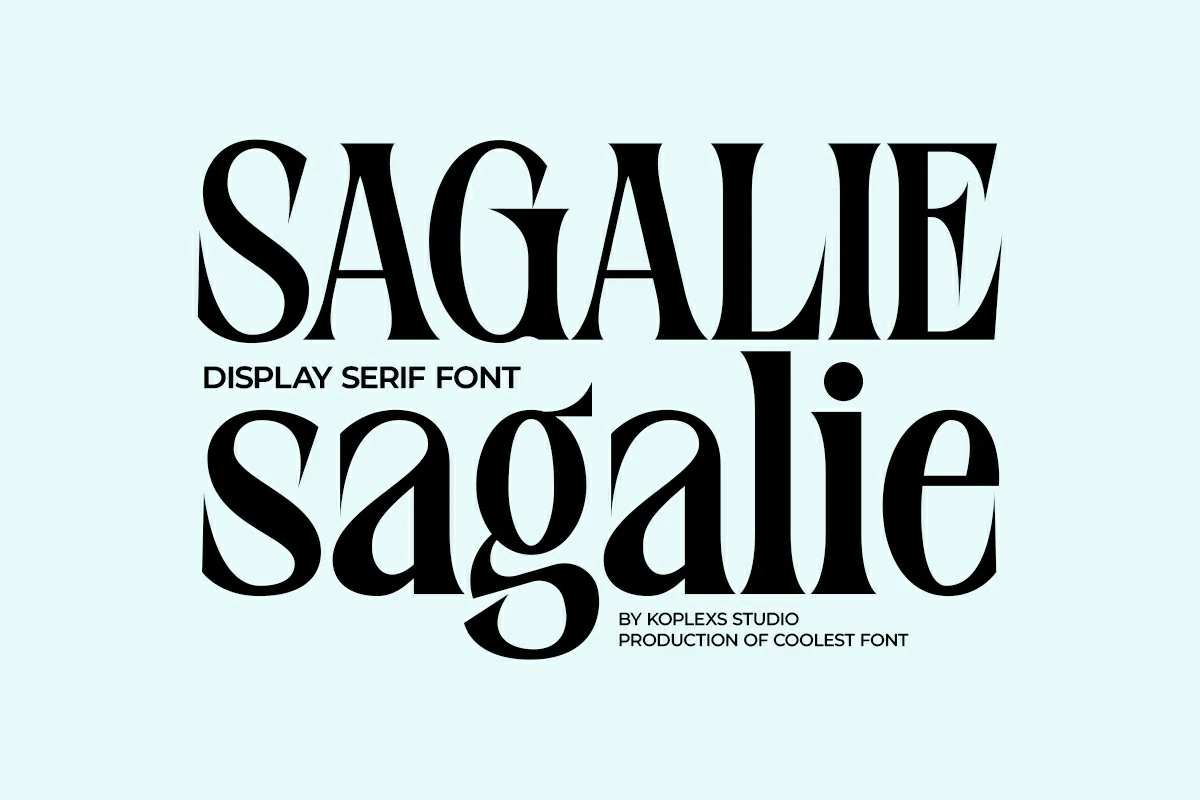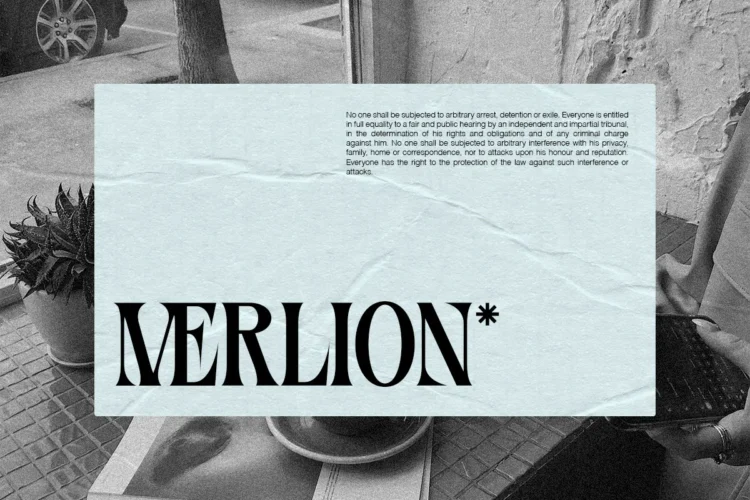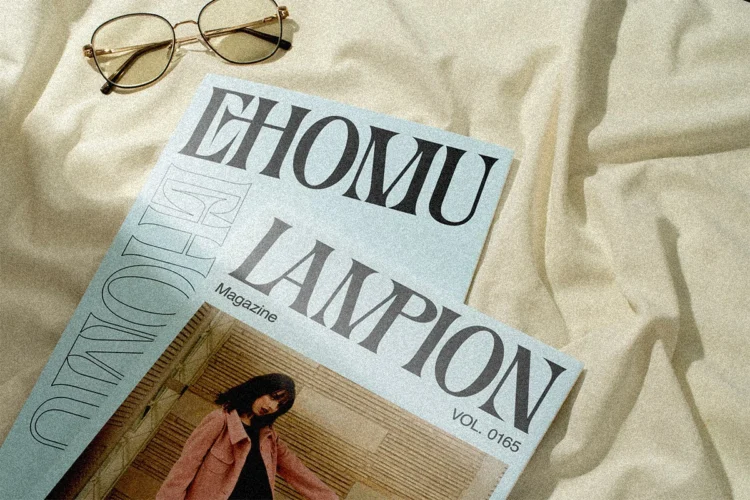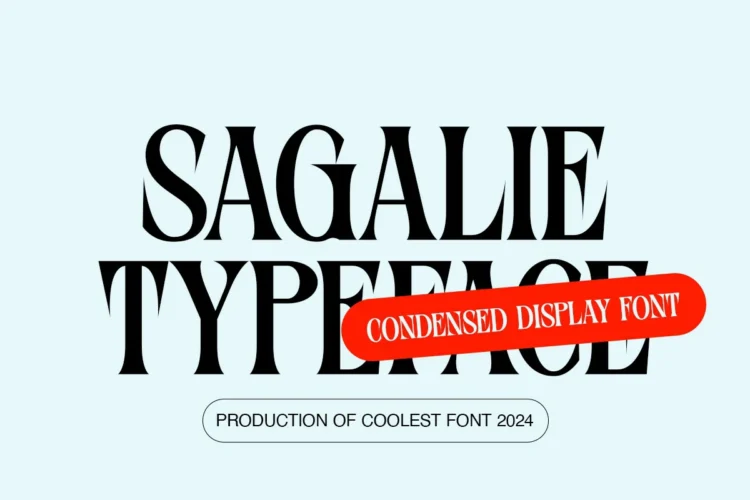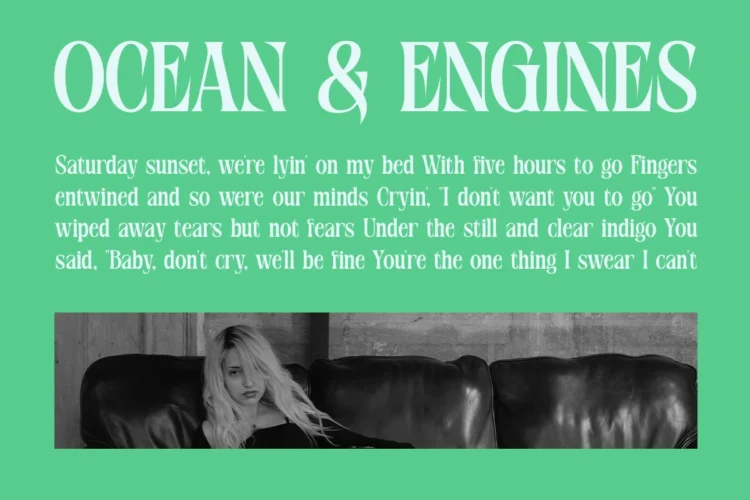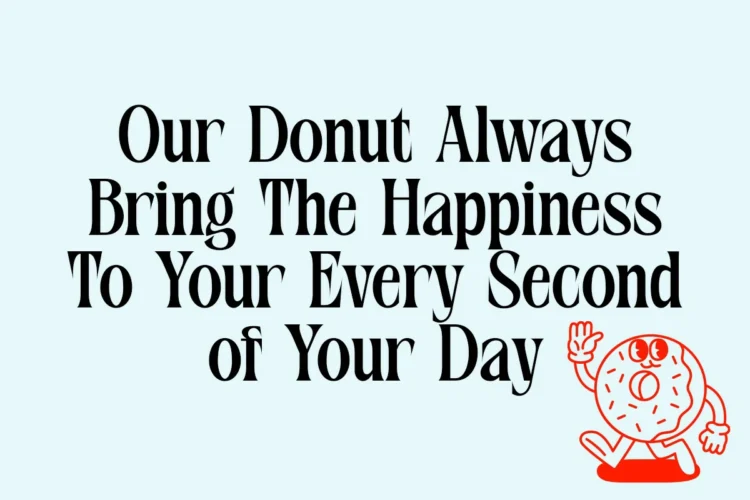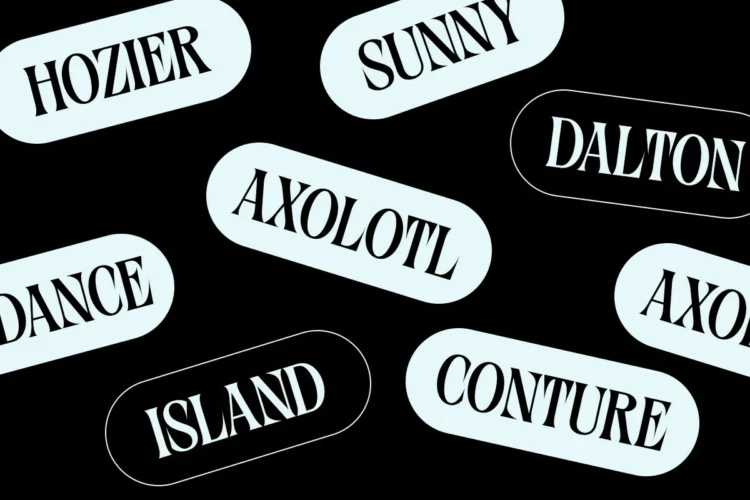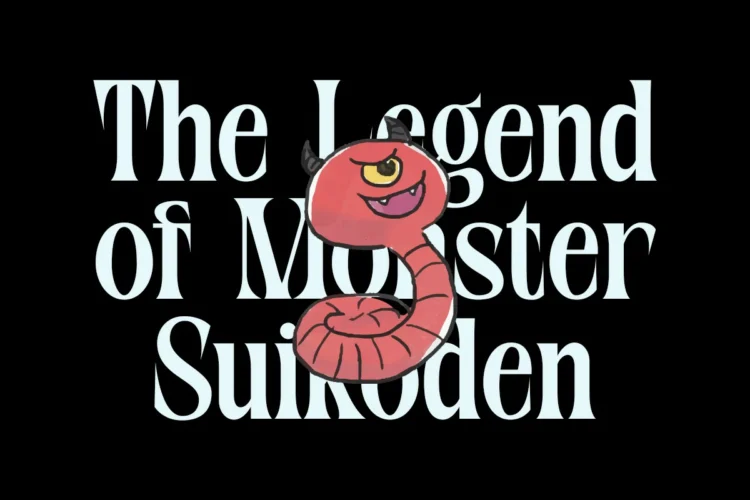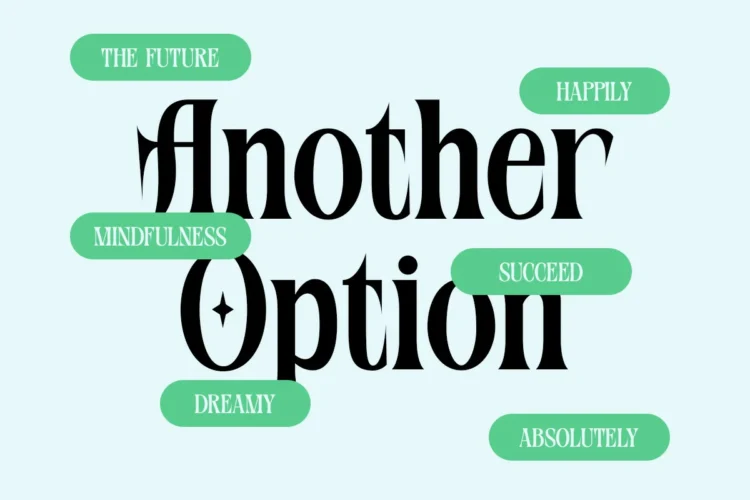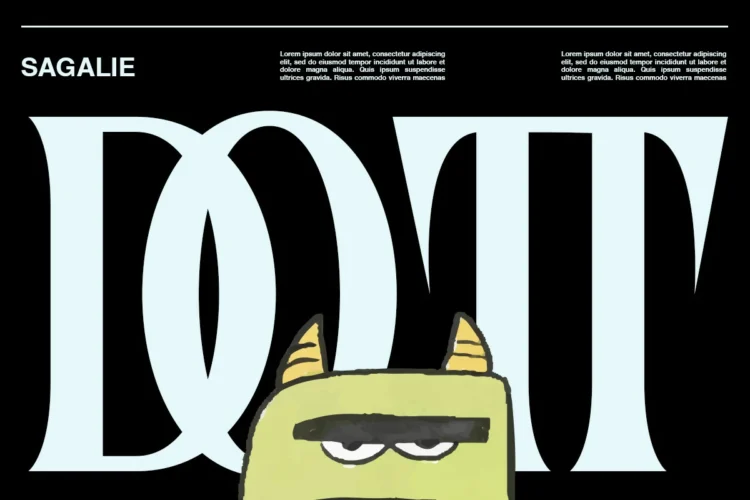
Sagalie Font
Sagalie Font – Aesthetic Modern Serif Display Font for Luxury Branding & Logos
Sagalie Font is a modern font that exudes timeless sophistication and creative flair. Designed as a serif font with a display font purpose, Sagalie combines elegant curves with sharp, bold edges making it the ultimate aesthetic font for modern and luxury projects.
This cool font stands out with beautifully crafted alternates and ligatures, offering endless design possibilities. Every stroke and curve in Sagalie balances strength and grace, creating a classic font feel with a contemporary twist. Whether you’re crafting minimalist designs or high-end visuals, Sagalie brings a premium look to every creation.
Perfect for designers who seek versatility, Sagalie Font shines across various creative applications functioning beautifully as a cosmetic font, branding font, heading font, or logo font. Its bold yet refined form also makes it ideal for editorial layouts, packaging, and high-impact visuals.
Sagalie Font is versatile and works beautifully for :
• Logo design and brand identity
• Cosmetic packaging and product labels
• Editorial layouts and magazine headlines
• Posters and advertising materials
• Social media visuals
• Book covers, album art, and fashion lookbooks
• Luxury branding and premium websites
🎨 Font Highlights:
• Elegant serif display font with luxurious personality
• Includes stylish alternates and ligatures for creative variation
• Modern aesthetic font with a timeless classic font appeal
• Ideal for branding, logo design, editorials, and cosmetics
• Works perfectly for luxury projects, magazine covers, and fashion campaigns
Sagalie Font embodies elegance, confidence, and creativity making it the goods font every designer needs to elevate their projects.
Sagalie Font is a modern serif display font that blends elegance and bold aesthetics. With its refined alternates and ligatures, this cool and classy font is perfect for logos, branding, headlines, magazines, and luxury designs. Sagalie captures both modern charm and classic sophistication making it an ideal aesthetic font for designers seeking timeless beauty and creative flair.